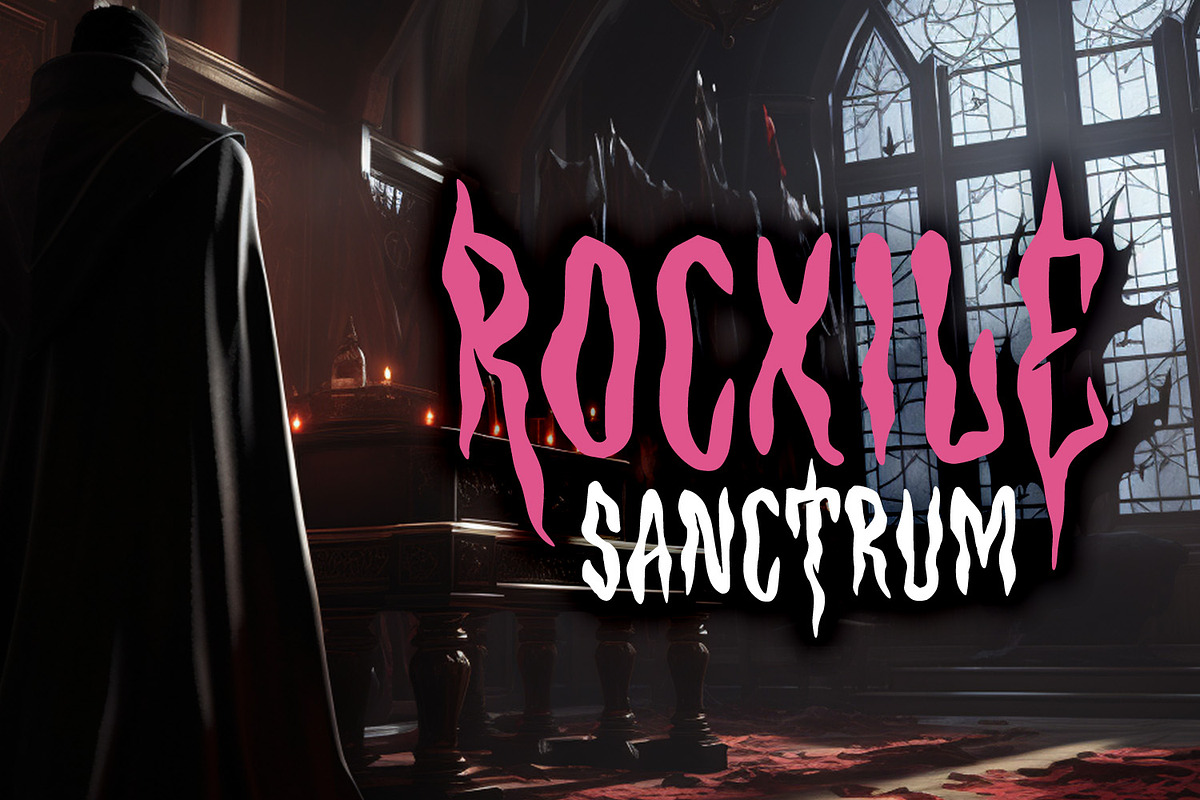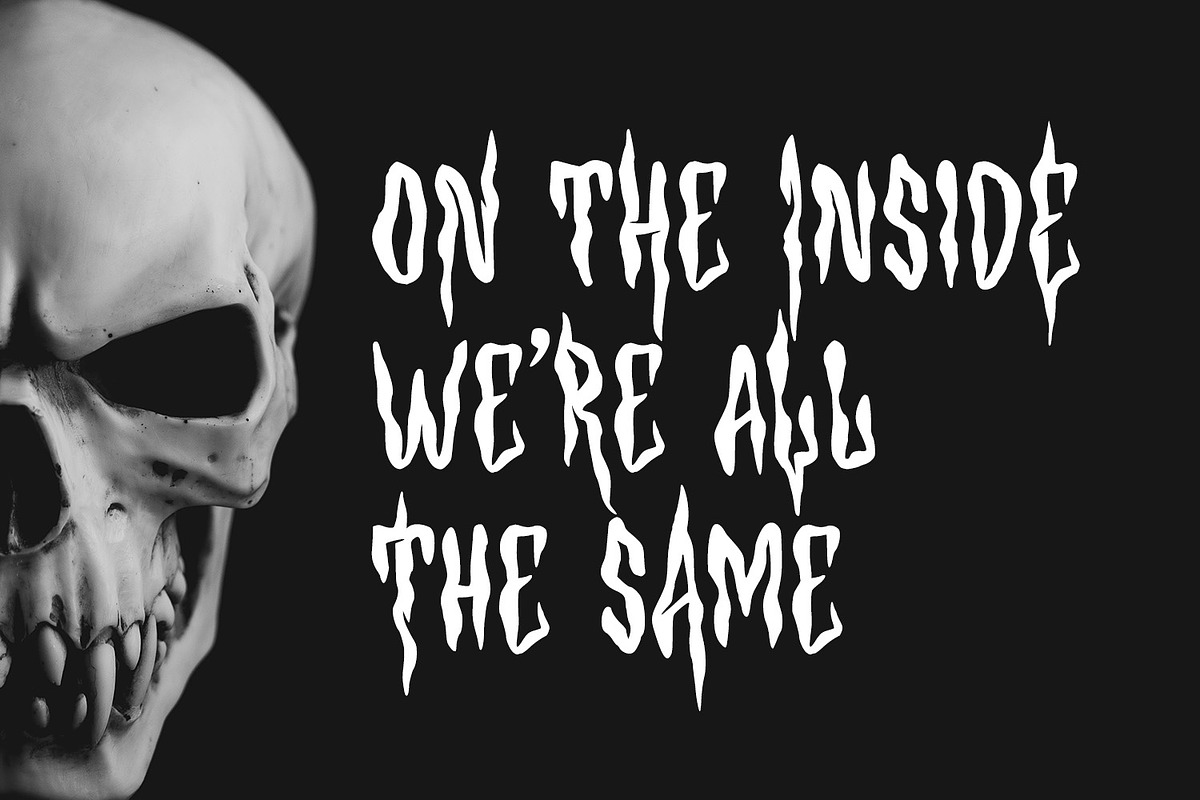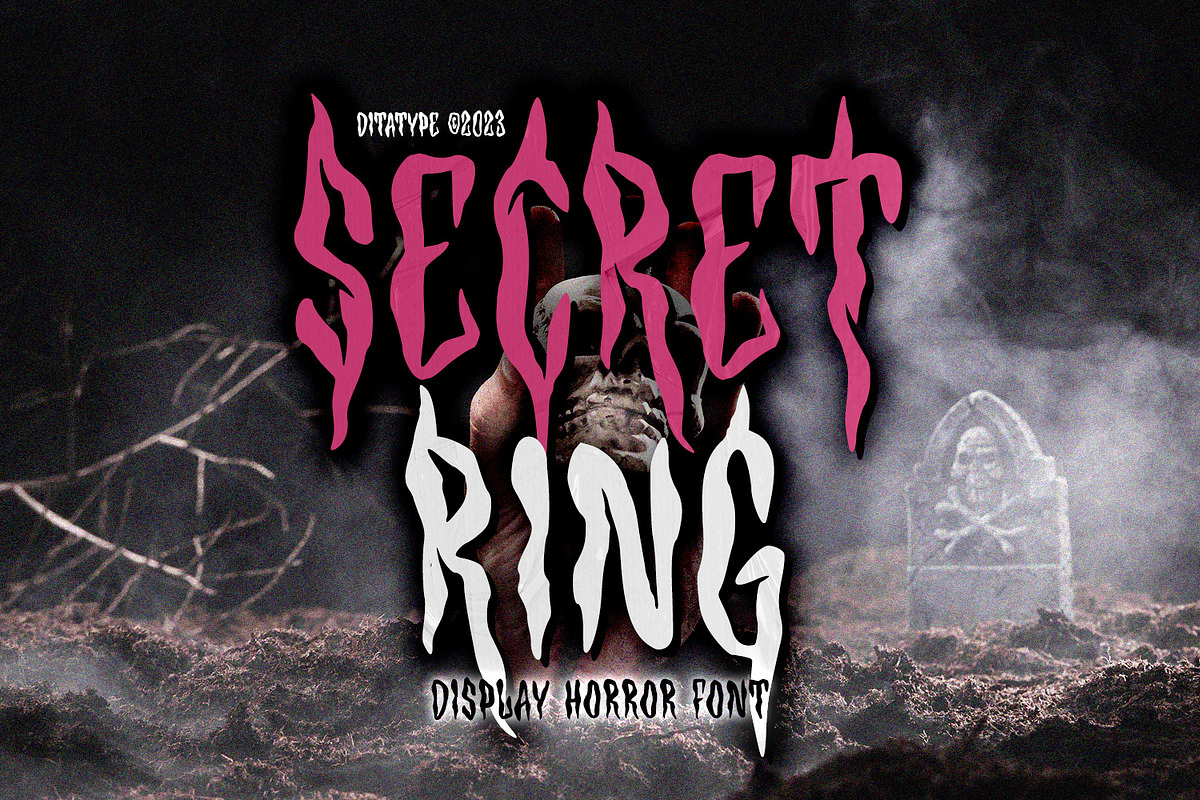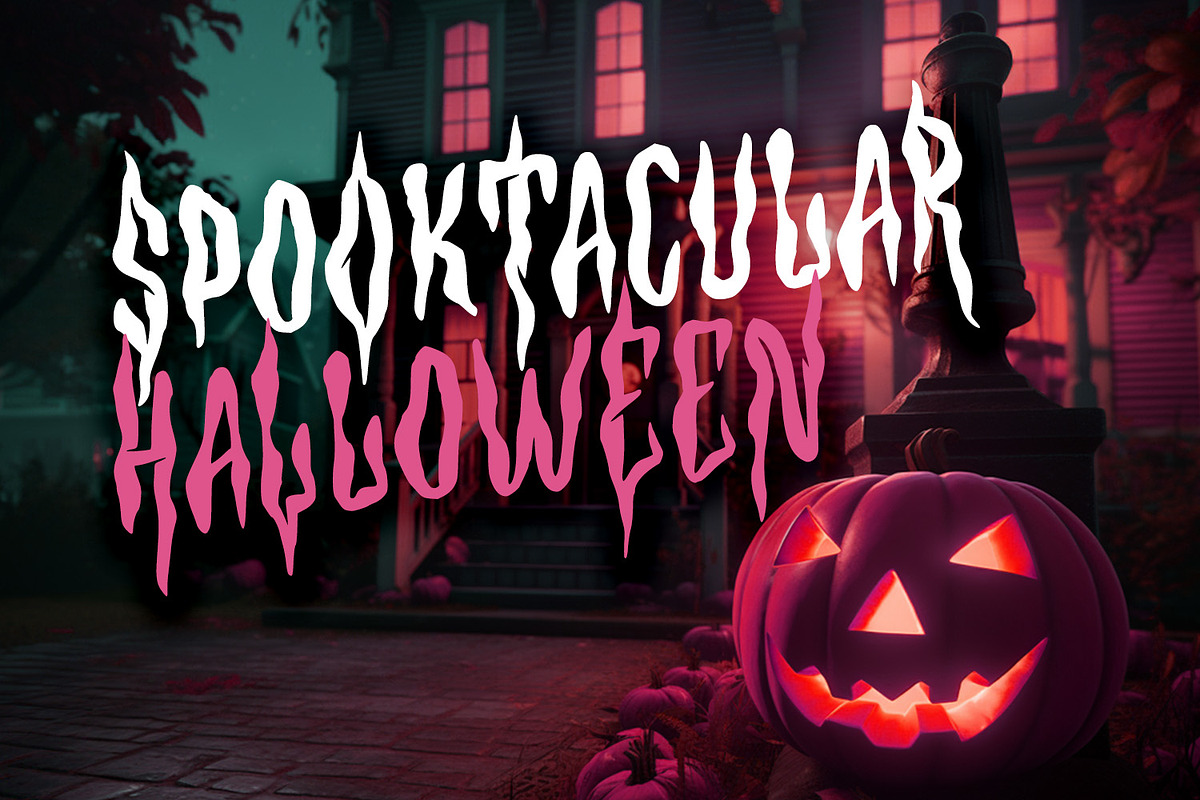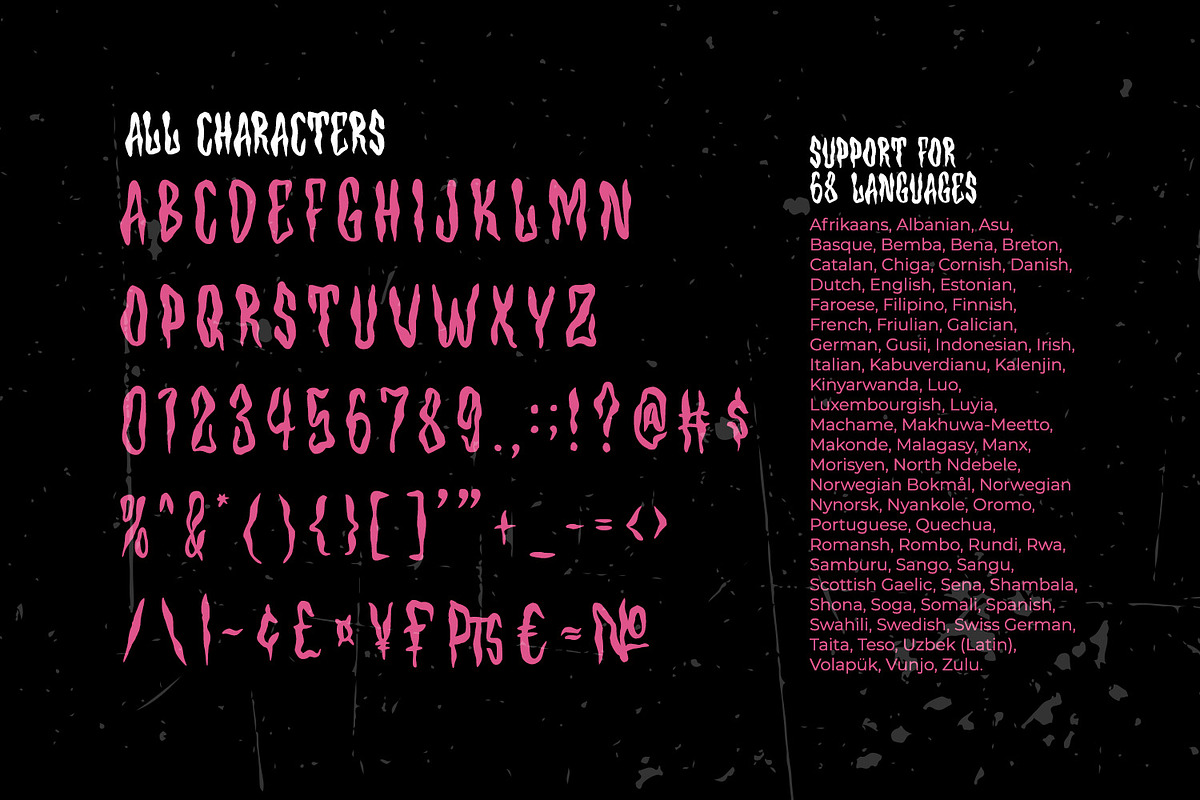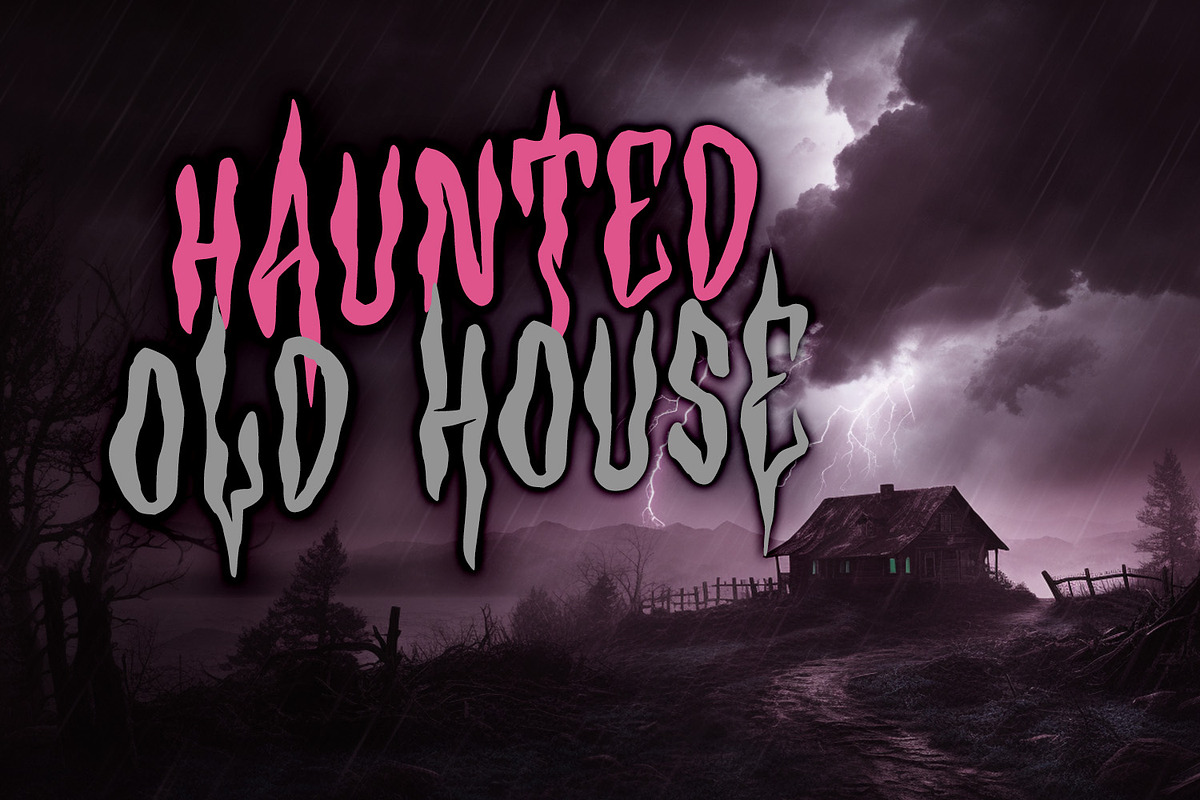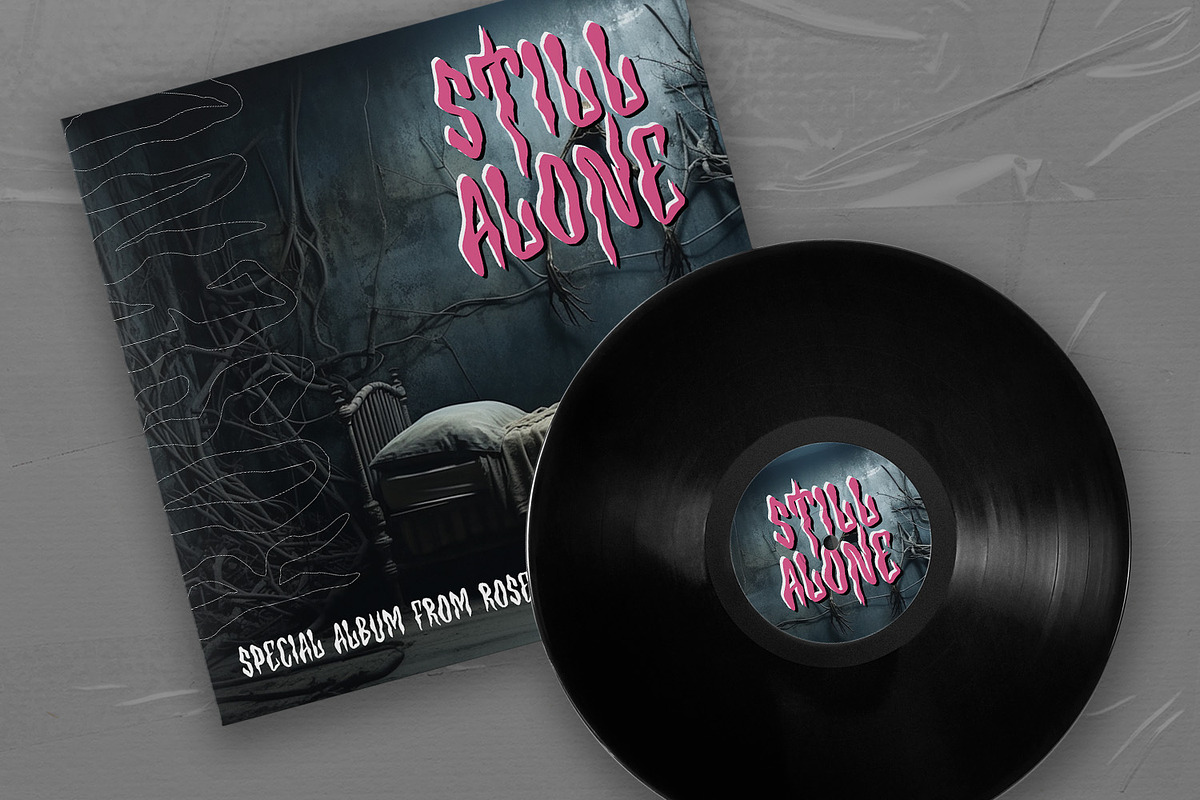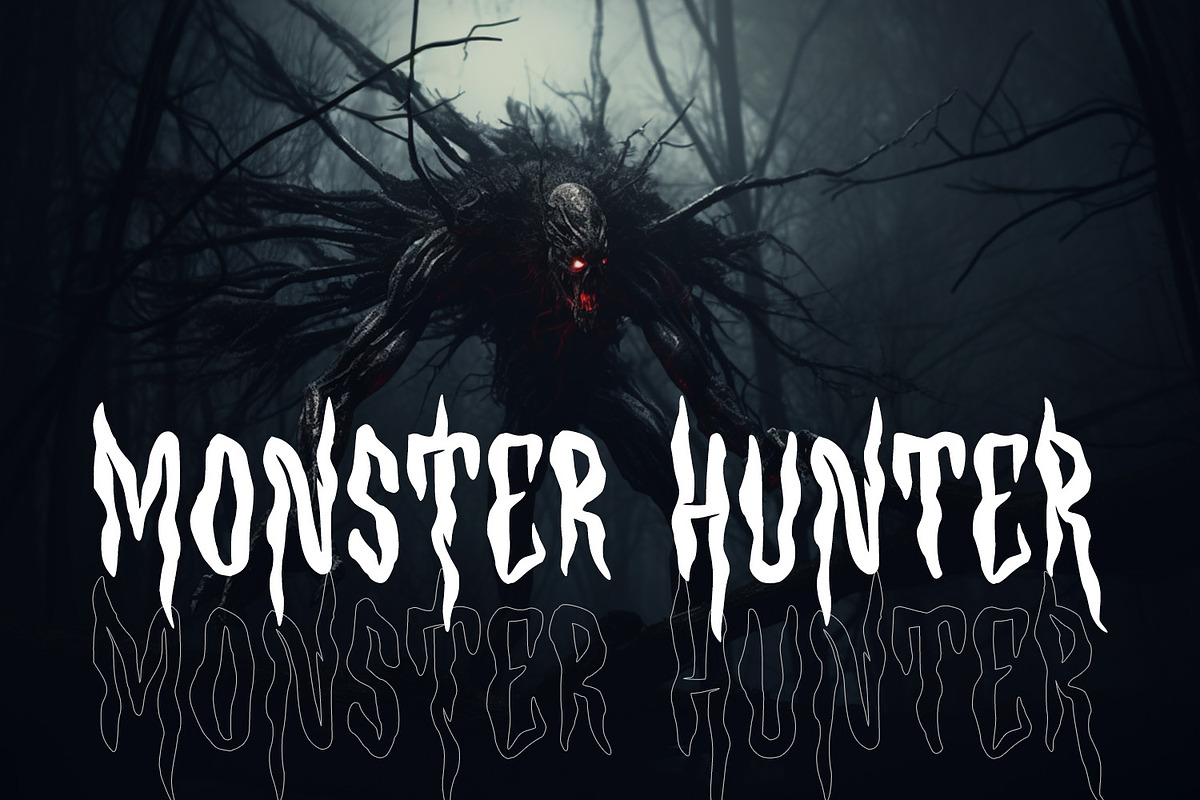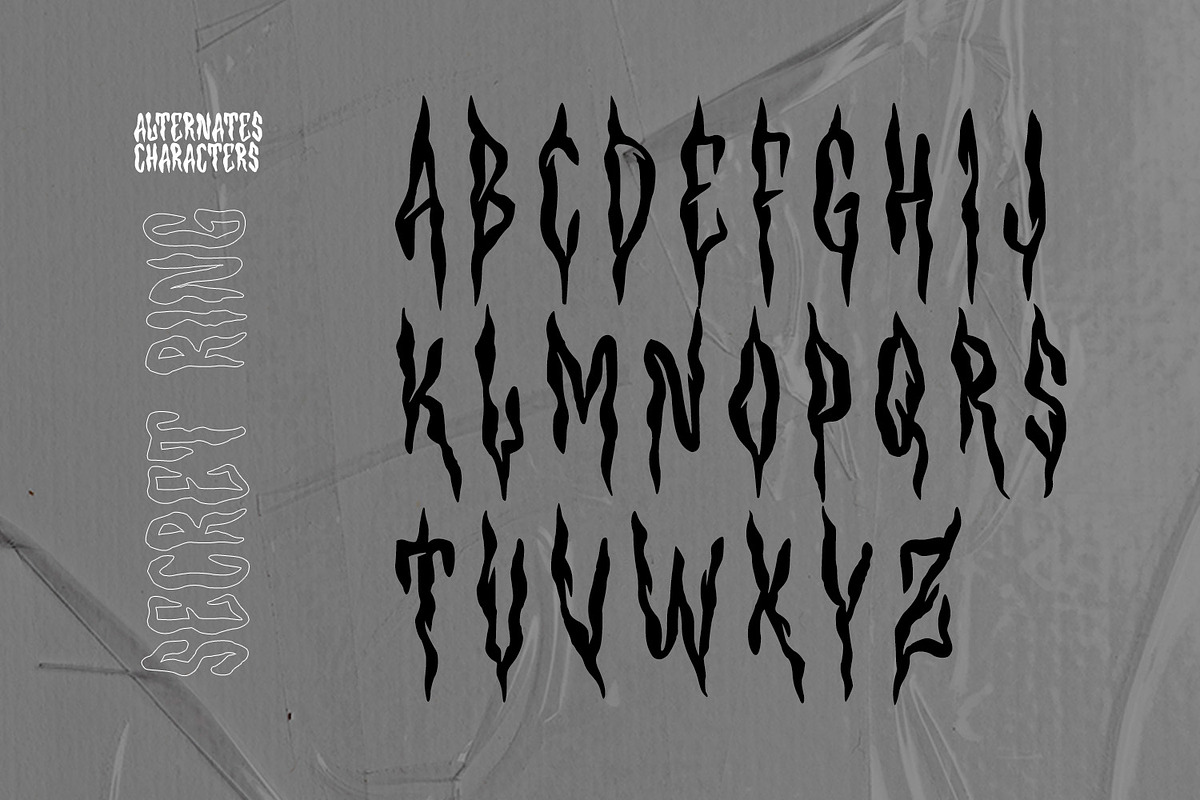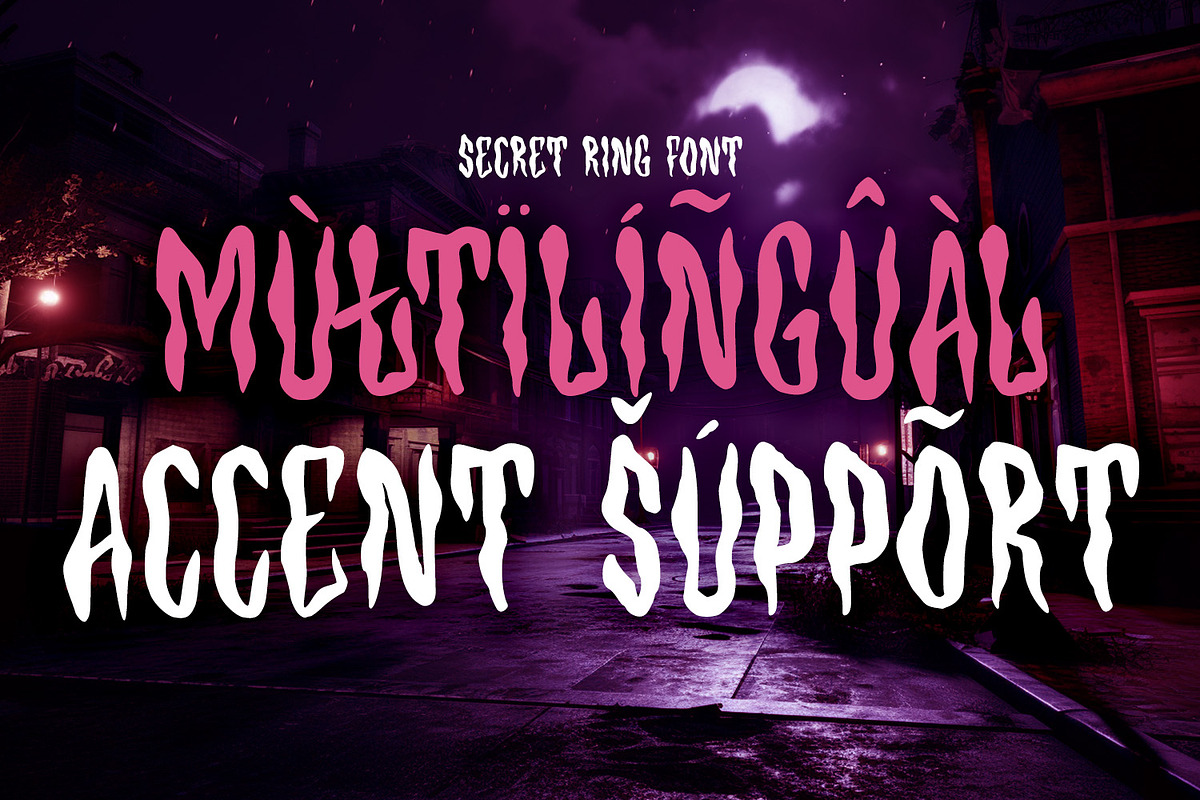
Secret Ring
Secret Ring is a captivating display font that will unravel the mysteries of the unknown in your designs. Designed in uppercase and bold, this typeface commands attention and exudes an aura of secrecy and horror. Each letter is meticulously crafted with details resembling plant roots with sharp edges, adding an eerie and enigmatic touch to the font. With its bold weight and uppercase design, Secret Ring creates a powerful and impactful presence. The root-like details in each letter of this font bring an organic and otherworldly appearance, as if the font draws its power from ancient and malevolent roots. These haunting details add an element of supernatural energy and create an atmosphere of foreboding and suspense. The combination of bold weight and sharp-edged root details gives this font a sinister and enigmatic look, evoking images of hidden rituals and occult symbols. For the best legibility you can use this font in the bigger text sizes. Enjoy the available features here.
Secret Ring fits in headlines, logos, movie posters, flyers, invitations, branding materials, print media, editorial layouts, headers, and any horror-themed project. Find out more ways to use this font by taking a look at the font preview.